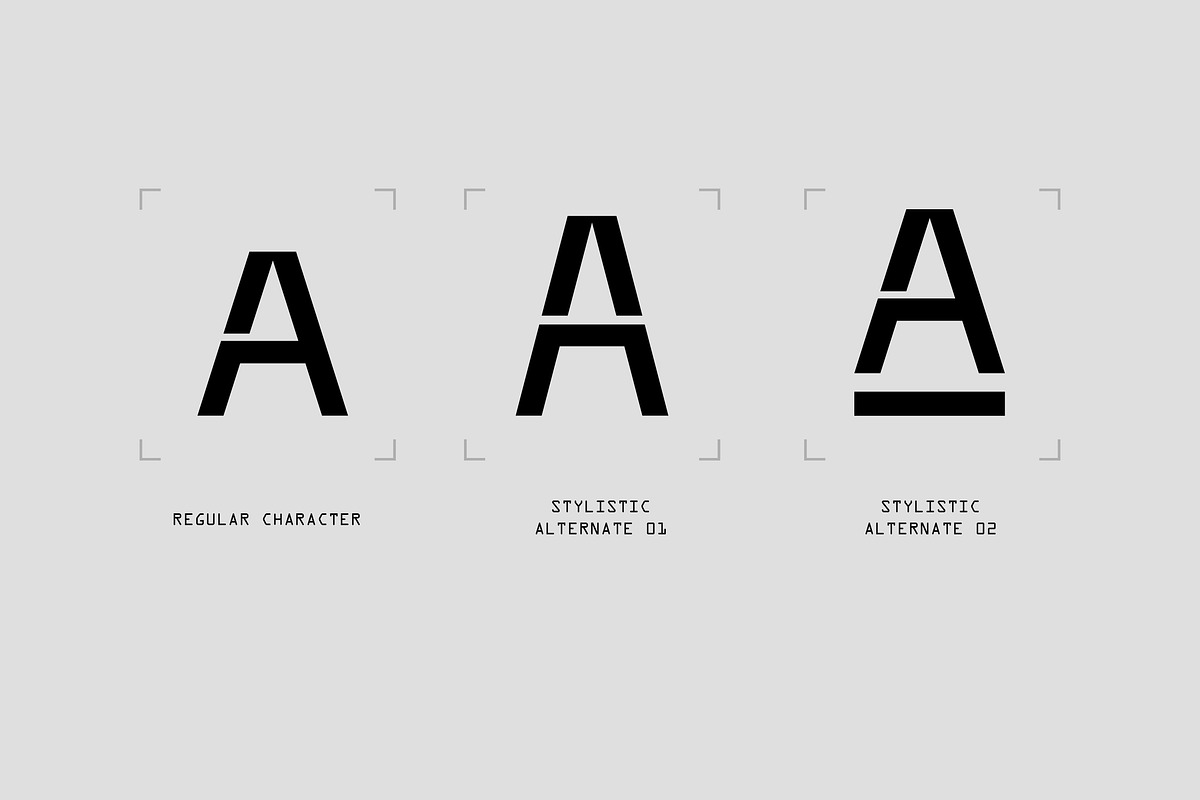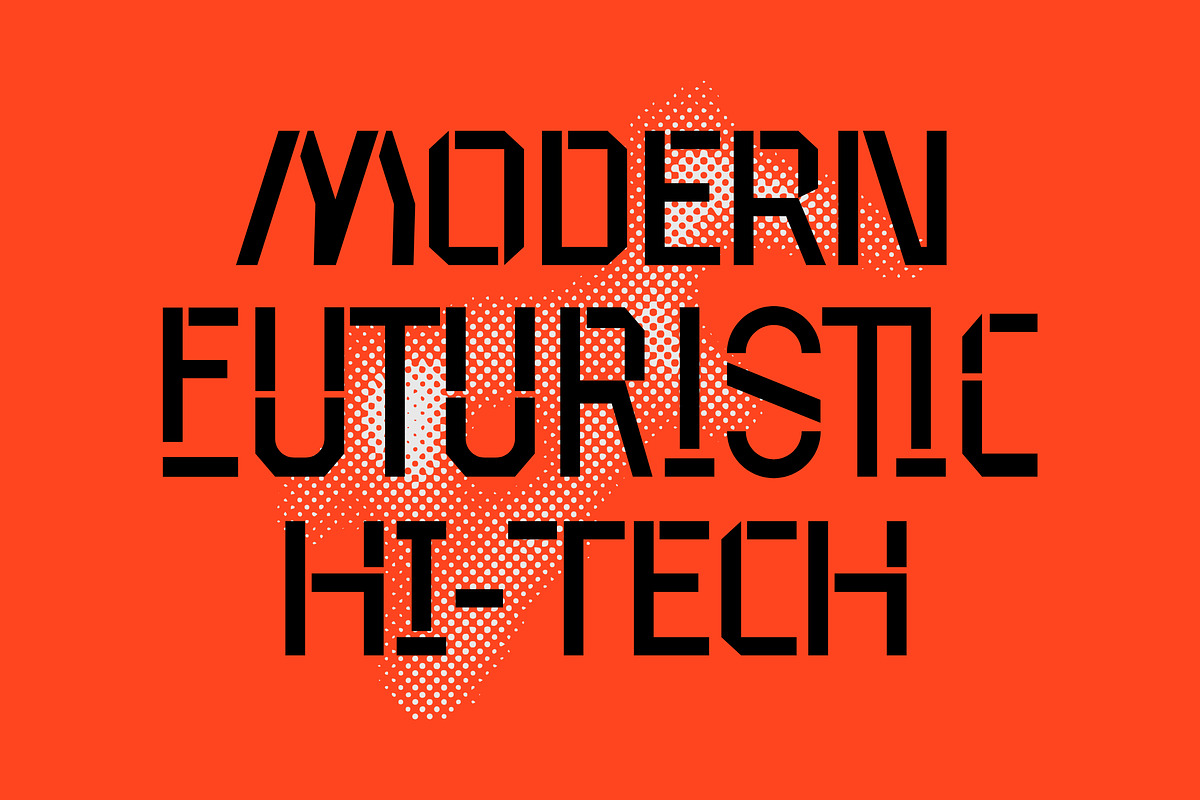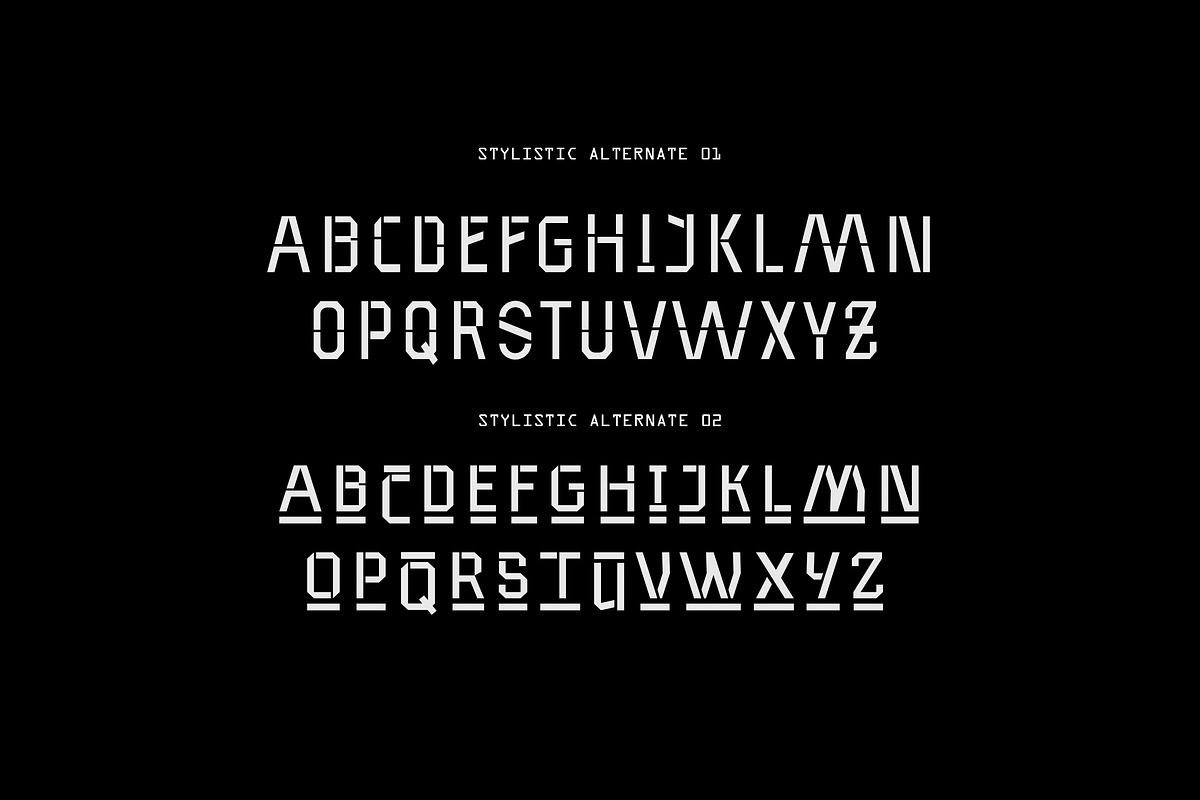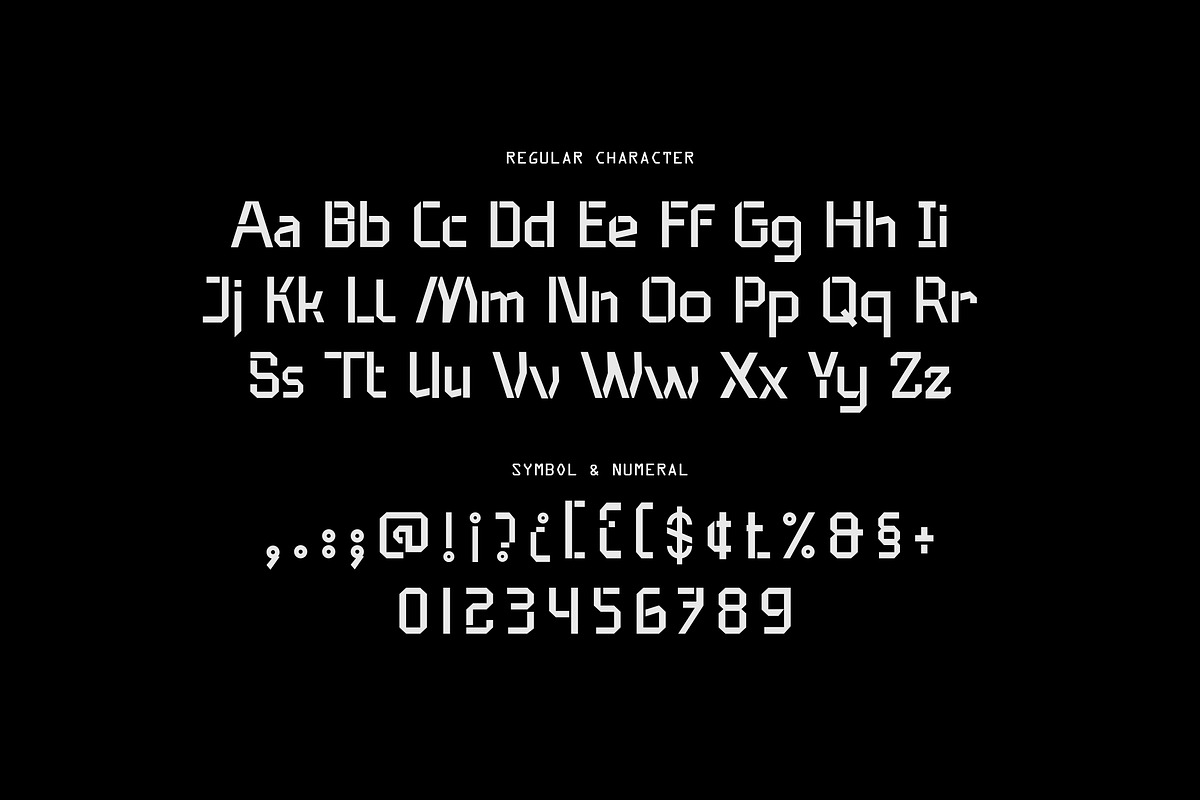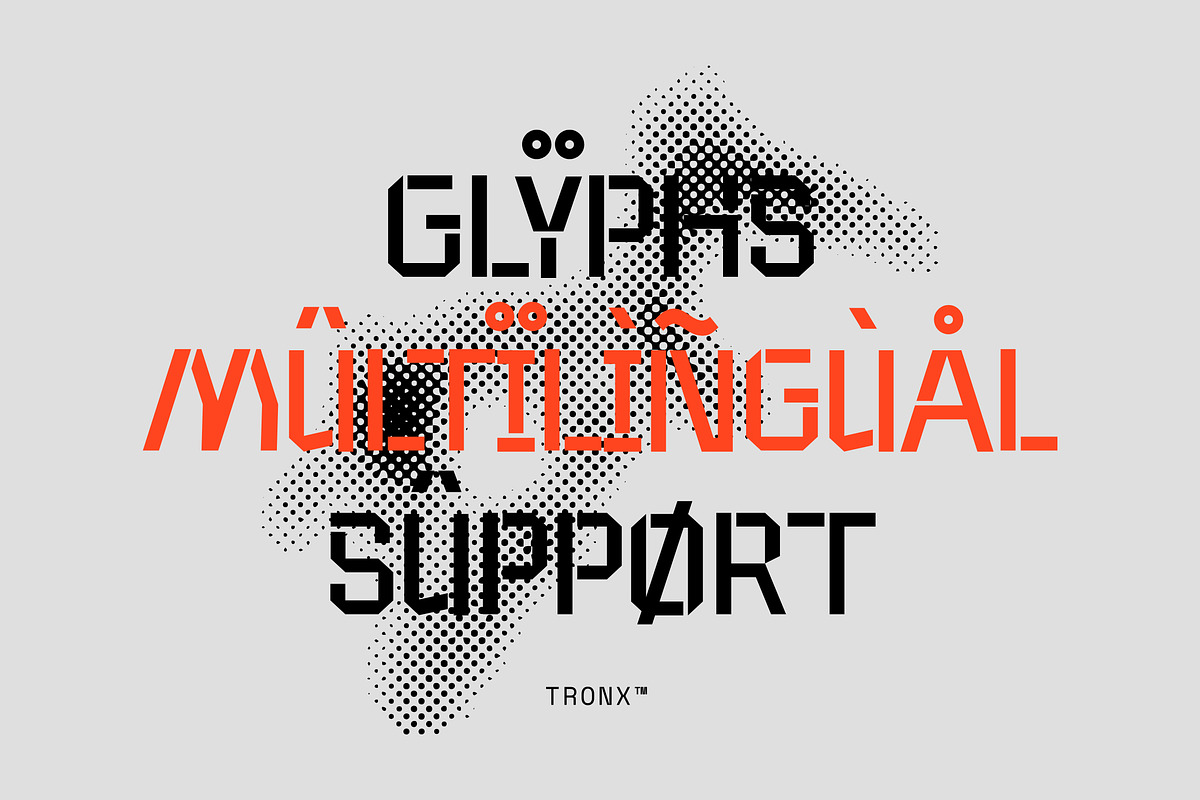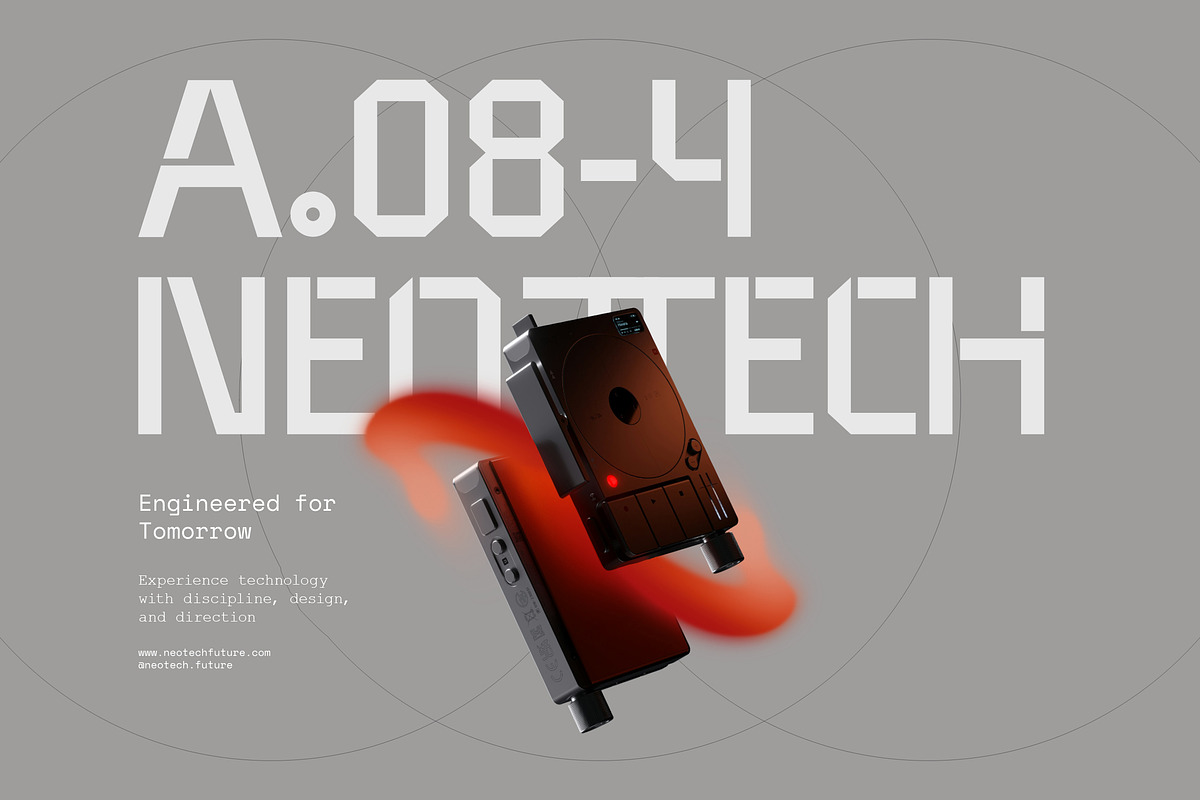
Tronx - Modern Futuristic Stencil
Tronx is a modern futuristic stencil font designed to launch your projects into the next generation. Tronx embodies the spirit of high tech innovation and digital frontiers with its powerful, commanding presence.
The letterforms are built on a wide, extended geometric base, giving each character a stable and impactful stance. The font's most defining feature is its distinctive stencil cuts strategic gaps and breaks in the letterforms that create a sense of mechanical precision and digital construction. These aren't just random cuts, they are intelligently placed to maintain legibility while enhancing the futuristic aesthetic, reminiscent of circuit boards, spaceship hull markings, and advanced user interfaces.
Tronx is perfect for:
- Technology and startup branding
- Sci-fi movie titles and posters
- Gaming logos, UI, and promotional materials
- Event flyers for tech conferences and expos
- YouTube thumbnails and channel art for tech focused content
Tronx is a versatile and robust typeface ready to tackle any futuristic design challenge.